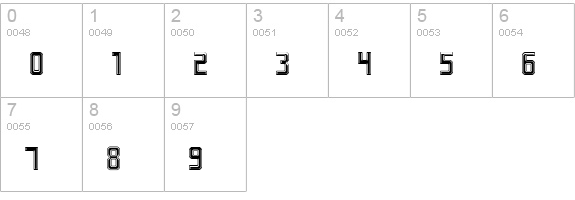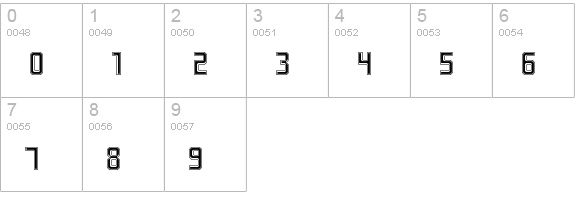
FM College Team in&out Font Details
Introducing the FM College Team In&Out font, a beautifully designed typeface that combines elegance and versatility. This font is perfect for a wide range of creative projects, including logos, branding, posters, and more. With its clean lines and modern aesthetic, FM College Team In&Out font adds a touch of sophistication to any design. Its unique character shapes and smooth curves create a sense of professionalism and creativity, making it an ideal choice for both digital and print media. What sets FM College Team In&Out font apart is that it is freely available to download at FontsMarket.com. This means that you can enjoy the benefits of this stunning font without any cost. Whether you are a professional designer or a hobbyist, this font allows you to enhance your projects without breaking the bank. Not only is FM College Team In&Out font visually appealing, but it also offers a wide range of options for customization. Its extensive character set includes uppercase and lowercase letters, numbers, punctuation marks, and special symbols, ensuring that you have all the tools you need to create the perfect design. Furthermore, FM College Team In&Out font is incredibly easy to use. Its user-friendly interface makes it accessible to both experienced designers and beginners alike. You can quickly and effortlessly incorporate this font into your projects, saving you time and effort. When it comes to versatility, FM College Team In&Out font truly shines. Its compatibility with various design software and platforms allows you to seamlessly integrate it into your workflow. Whether you are working on a website, a magazine layout, or a social media post, this font will elevate your design to new heights. In conclusion, FM College Team In&Out font is a stunning typeface that offers both beauty and functionality. With its timeless design and extensive customization options, it is the perfect choice for any creative project. And the best part? It is freely available to download at FontsMarket.com, allowing you to elevate your designs without any cost. Don't miss out on this incredible opportunity to enhance your work with FM College Team In&Out font.